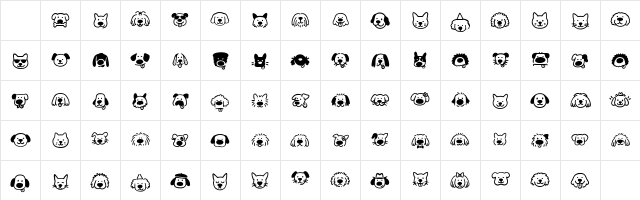
Complete Zingflawdog Regular glyph index. Displaying only characters natively supported by Zingflawdog Regular font.
Zingflawdog is a composed and adaptable typeface that performs quietly and consistently across a wide range of design contexts.